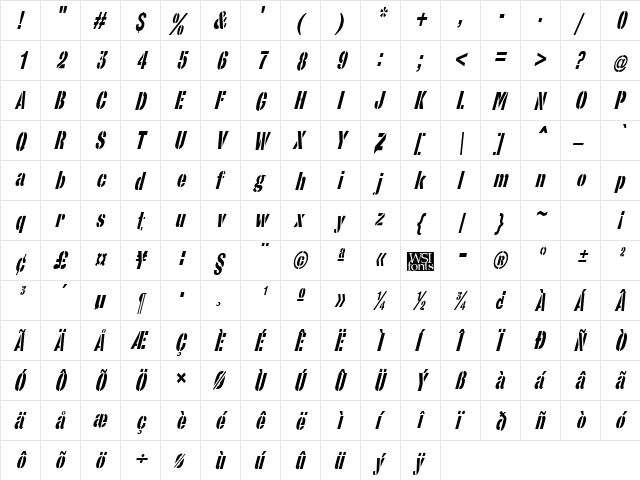
StencilSansCondensed Italic
Design Context for StencilSansCondensed Typeface
StencilSansCondensed borrows the utilitarian aesthetic of stencil lettering, with its characteristic cutaways and no-frills construction lending an industrial edge. The slanted form adds forward momentum and visual energy.
A strong choice for packaging that needs edge, warehouse aesthetics, and rough-and-ready visual identities.
Pro Tip: Use StencilSansCondensed at large sizes on packaging, posters, or apparel where the stencil cutaways read clearly. Avoid small sizes where those gaps become visual noise.